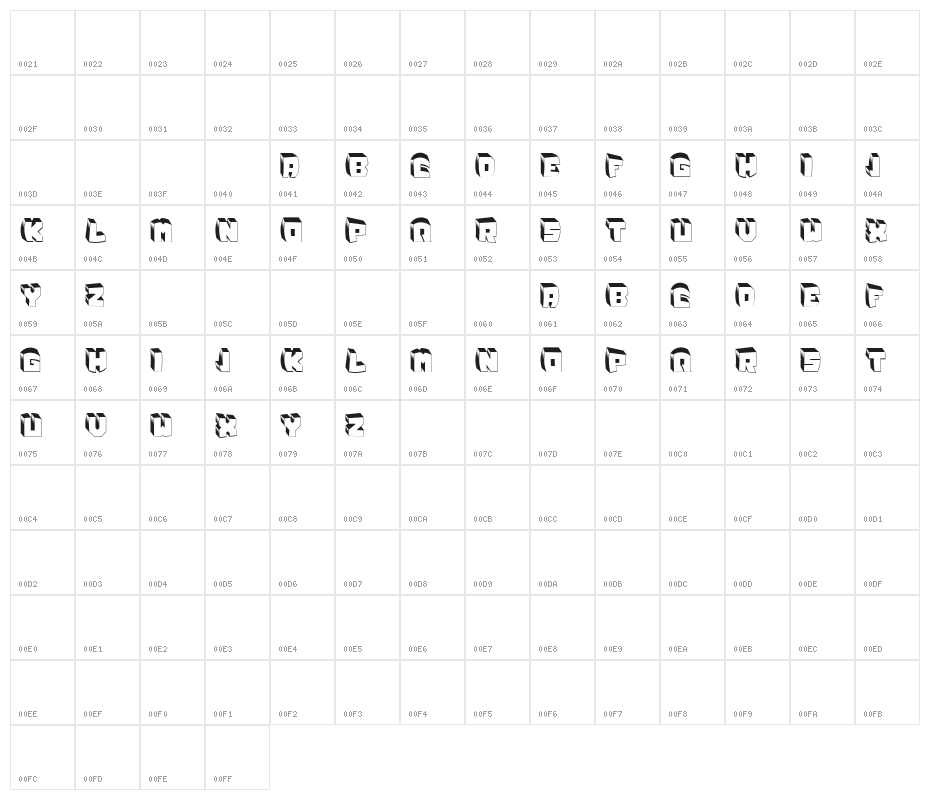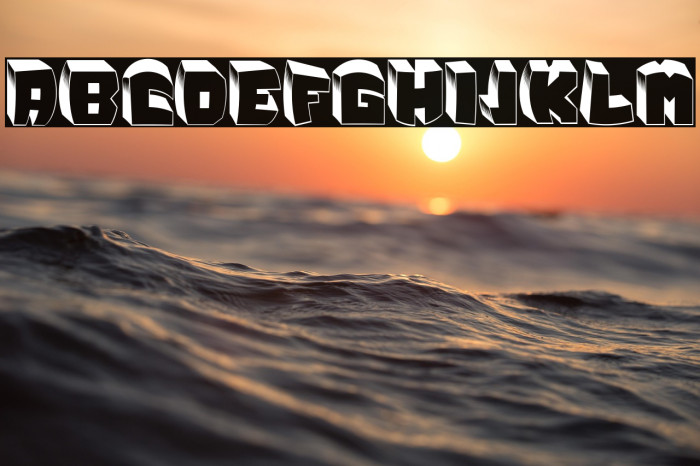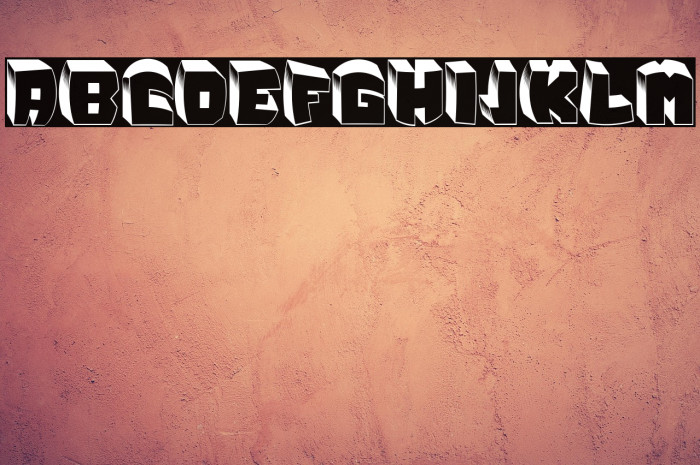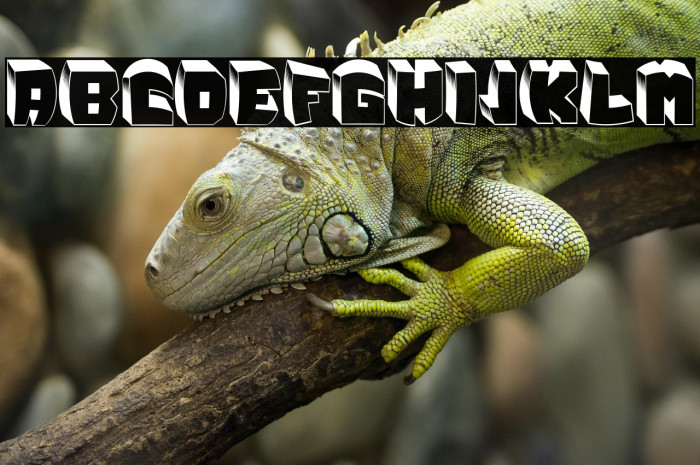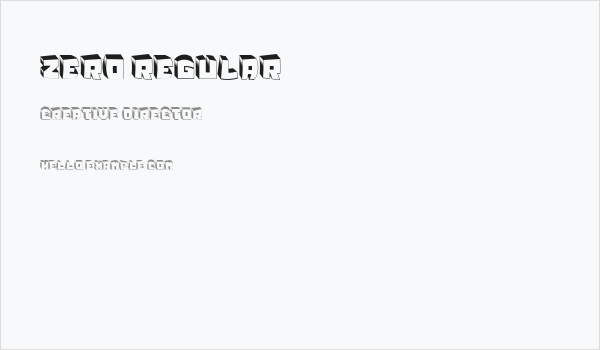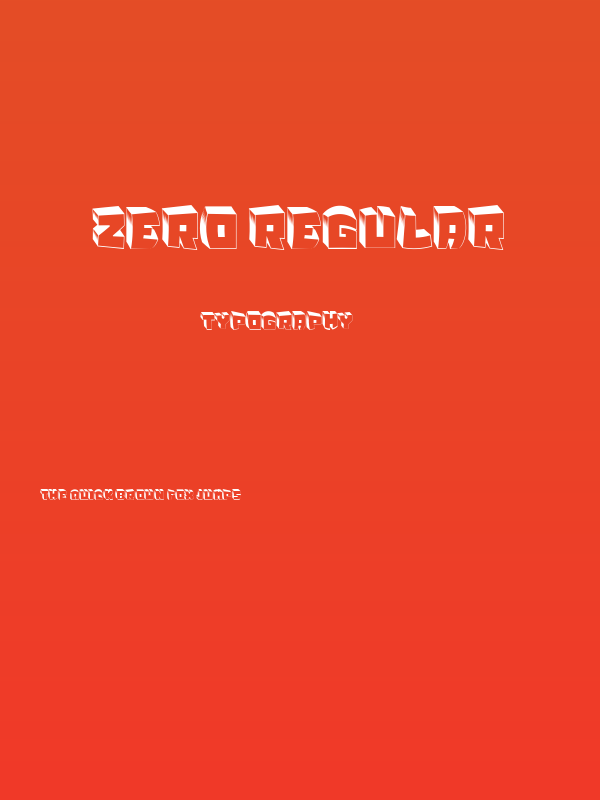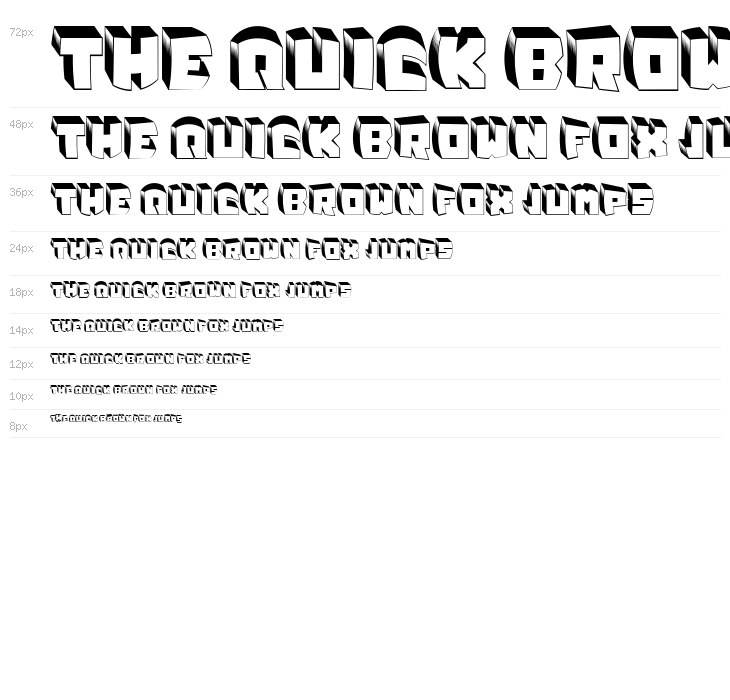
Zero Regular Font
This font features a bold, three-dimensional design with a strong, impactful presence. The letters are characterized by their thick, block-like structure, giving them a robust and sturdy appearance. The 3D effect is achieved through shadowing and highlights, which add depth and dimension to each character. The style is reminiscent of retro or vintage signage, making it ideal for projects that require a bold statement. The uppercase letters are consistent in height and width, providing a uniform look across the board. This font is particularly suited for display purposes where attention-grabbing text is necessary.
| Overall Style | Vintage |
| Proposed Projects | Ideal for posters, headlines, logos, and any design requiring a strong visual impact. |